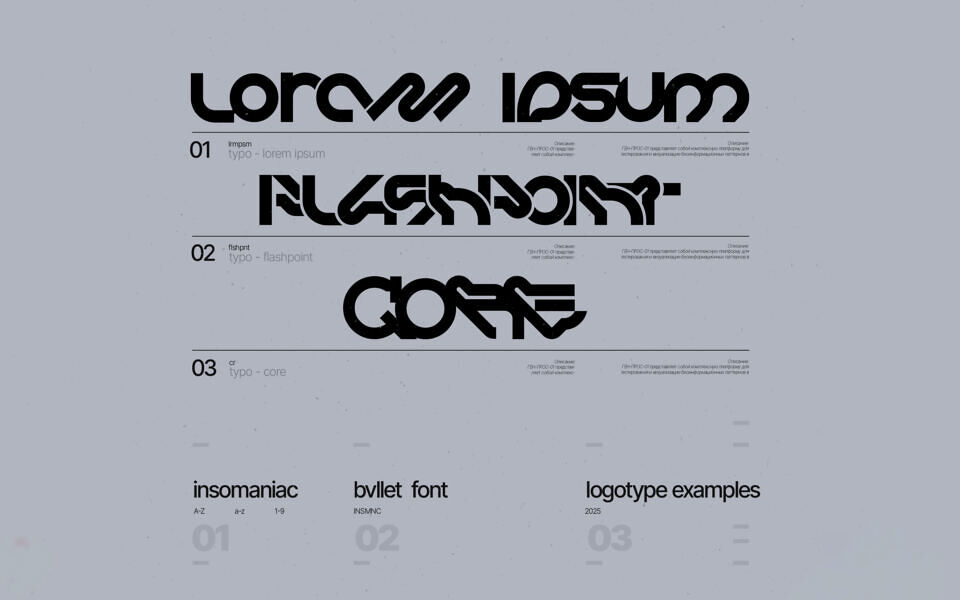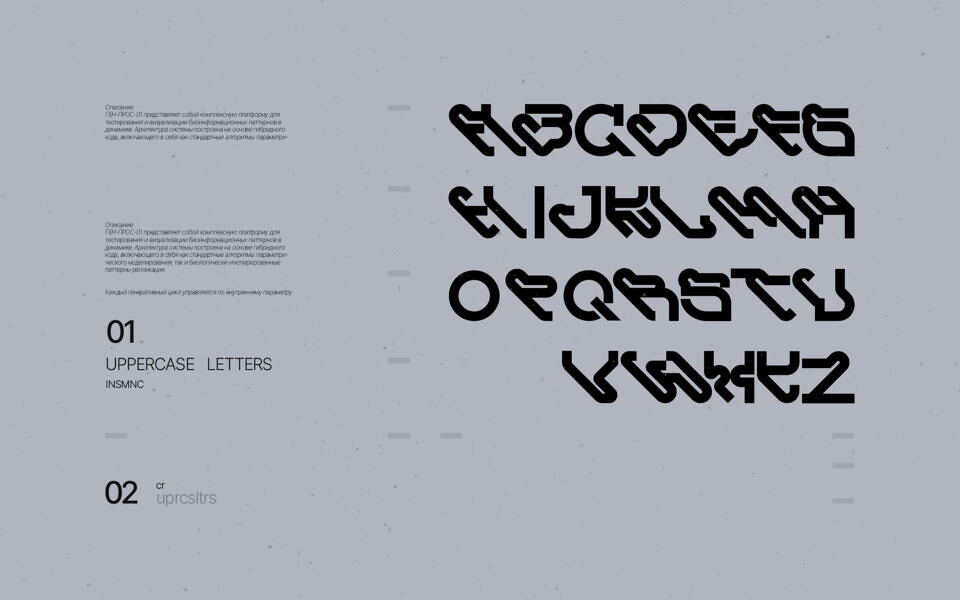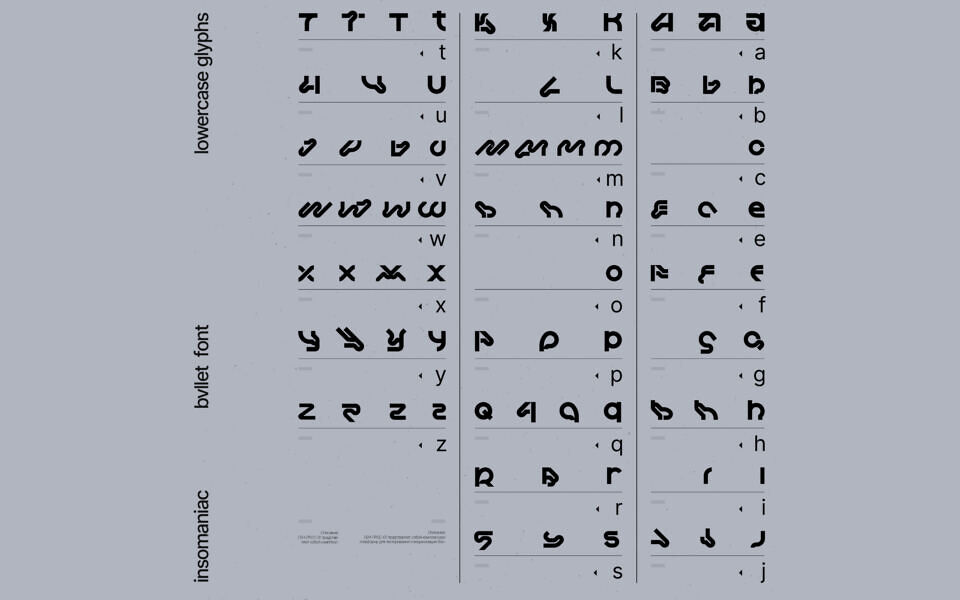
Bvllet Font
Meet BVLLET by Insomaniac, a brand-new, completely free SIL Open Font designed for ultimate creativity.
What’s inside BVLLET?
• Full character set: A–Z, a–z, 0–9 + all standard punctuation
• 120+ alternate glyphs: swap in different letterforms for a custom look
• Uppercase & lowercase: flexible for bold headlines or sleek body text
• Logo-ready: dynamic shapes perfect for logotypes, posters, banners and more